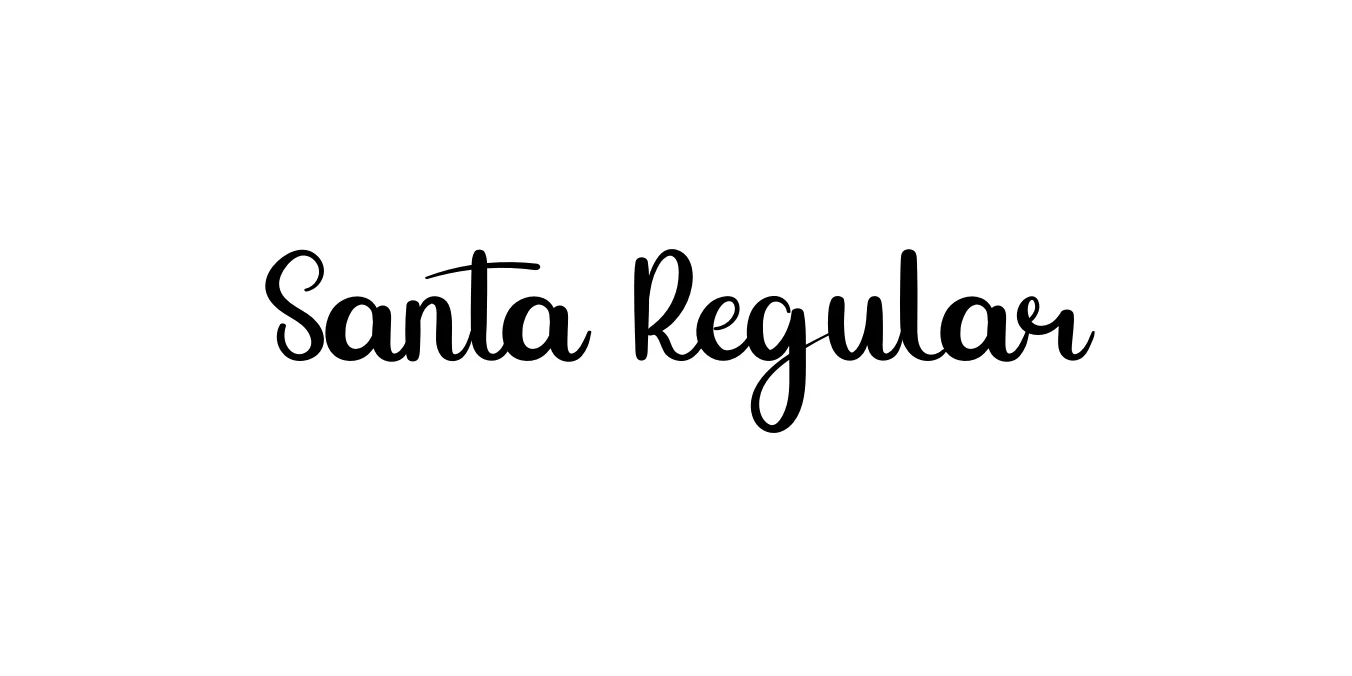
Santa Regular
Designed by MJType (Muhammad Junaidi)
| Font Name | Santa |
| Category | Display / Script |
| Designer | MJType (Muhammad Junaidi) |
| Similar Fonts | Christmas Wish, Lobster, Pacifico, Great Vibes |
Santa Regular is a whimsical and festive display font designed to encapsulate the joyful spirit of the holiday season. Developed with a focus on fluid, hand-drawn strokes, the typeface offers a warm and inviting aesthetic that mirrors traditional seasonal calligraphy. Its design incorporates playful curves and elegant loops, making it an essential tool for creators looking to add a touch of Christmas magic to their visual storytelling.
Since its release, Santa Regular has become a go-to choice for seasonal marketing and personal DIY projects alike. The font is engineered to maintain high legibility while providing a decorative flair that stands out in both digital and print environments. Its comprehensive character set often includes unique ligatures that allow for a seamless, custom-lettered look, perfect for everything from high-end retail signage to cozy family greeting cards.
Santa Regular Best Uses
Ideal for seasonal logos, retail banners, and winter-themed brand identities.
Perfect for adding a personal and festive touch to Christmas and New Year invitations.
Enhances the visual appeal of holiday-themed product boxes and gift tags.
Great for creating eye-catching Instagram posts and festive digital announcements.
Highly effective for large-scale event advertisements and seasonal party flyers.